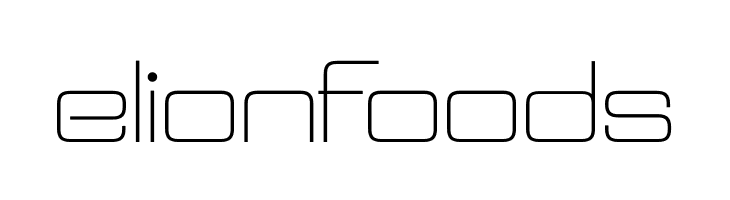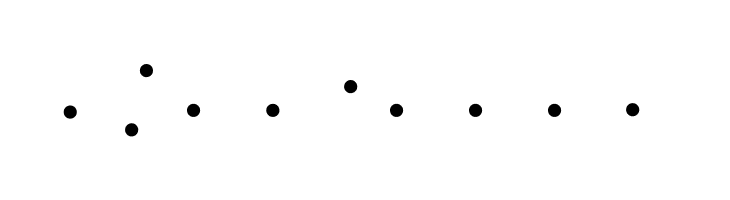
( Neospace is a layered font that allows you to create typographic titles in various colors, imitating the sophistication of futuristic electronic circuits. FULL VERSIONS & LICENSES: https://defharo.com/fonts/neospace/ )
A futuristic, wide, and geometric font with balanced spacing.
A minimalist, geometric font with clean lines and rounded edges.
A clean, geometric font with a modern and balanced design.